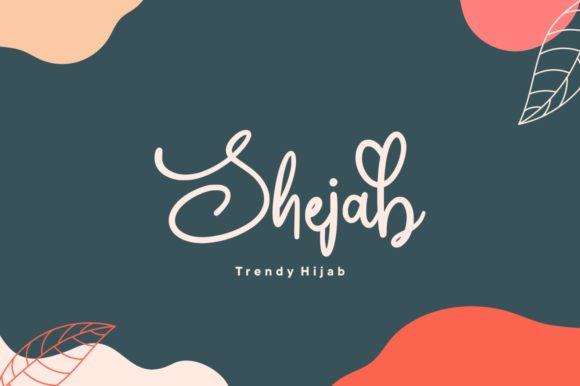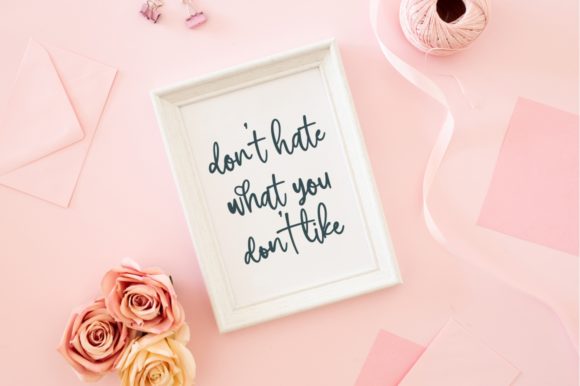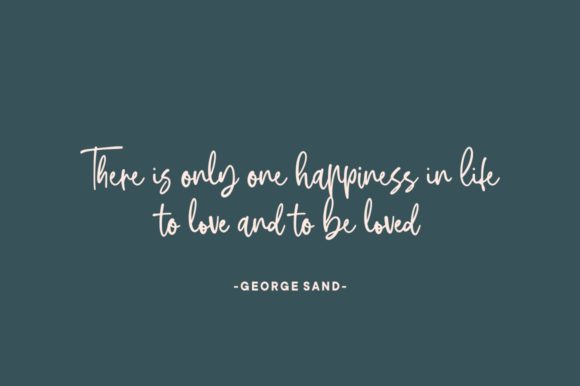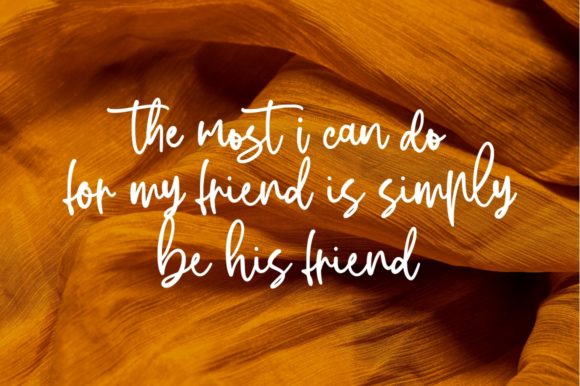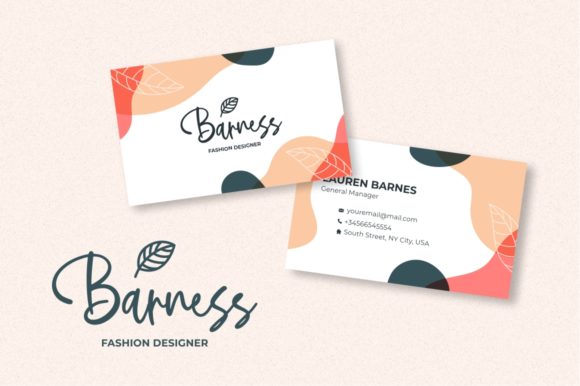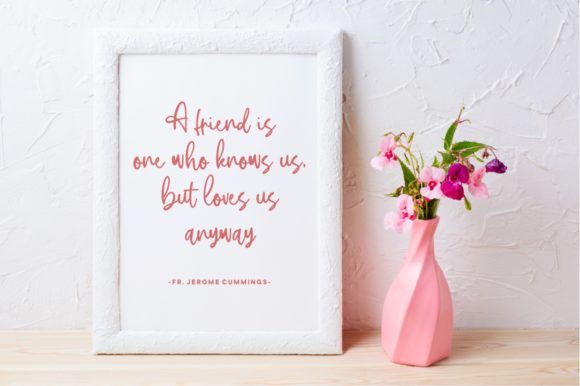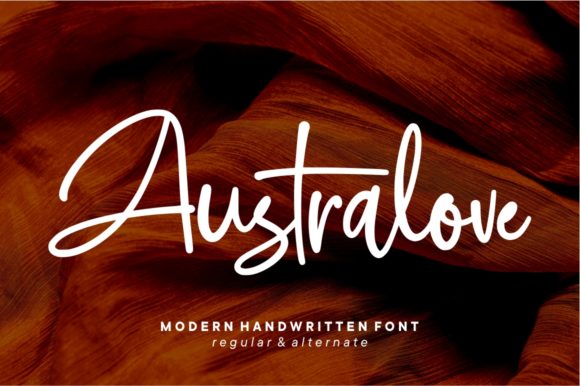
Falling in Love with Australove Font: A Modern Script with a Gorgeous Feel
I’ll never forget the moment I stumbled upon the perfect font for a client’s wedding invitation project. I had been searching for hours, trying out different scripts and modern fonts, but nothing seemed quite right. That was until I discovered Australove Font. Its stunning swashes and elegant feel instantly captured my heart, and I knew I had found the one. In this article, I’ll share my love for Australove Font, its features, and how to make the most of it in your designs.
An Honest Review of Australove Font
What I Love About Australove Font ✨
- 💕 Modern swashes that add a touch of elegance to any design
- 🌈 Beautifully crafted to evoke a sense of love and sophistication
- 🎨 Versatile and perfect for various design projects, from wedding invitations to branding
While Australove Font is an amazing script, there are a few things to keep in mind:
- 🤔 Some swashes may not work well with shorter texts or headings
- ⚠️ Limited character set compared to other fonts, but still offers a range of OpenType features
The Story Behind Australove Font
While the true story behind Australove Font remains a mystery, it’s easy to imagine that its designer was inspired by the beauty of love and relationships. Perhaps they wanted to create a font that would help people express their feelings in a unique and elegant way. Whatever the inspiration, Australove Font has undoubtedly captured the hearts of designers and crafters around the world.
| Font Name | Australove Font |
| Author | Garisman Studio |
Q: What is Australove Font best used for?
A: Australove Font is perfect for designs that require a touch of elegance and sophistication, such as wedding invitations, branding, and advertising.
Q: Is Australove Font available in different weights or styles?
A: While Australove Font may not have multiple weights or styles, its versatility and range of OpenType features make it suitable for various design projects.